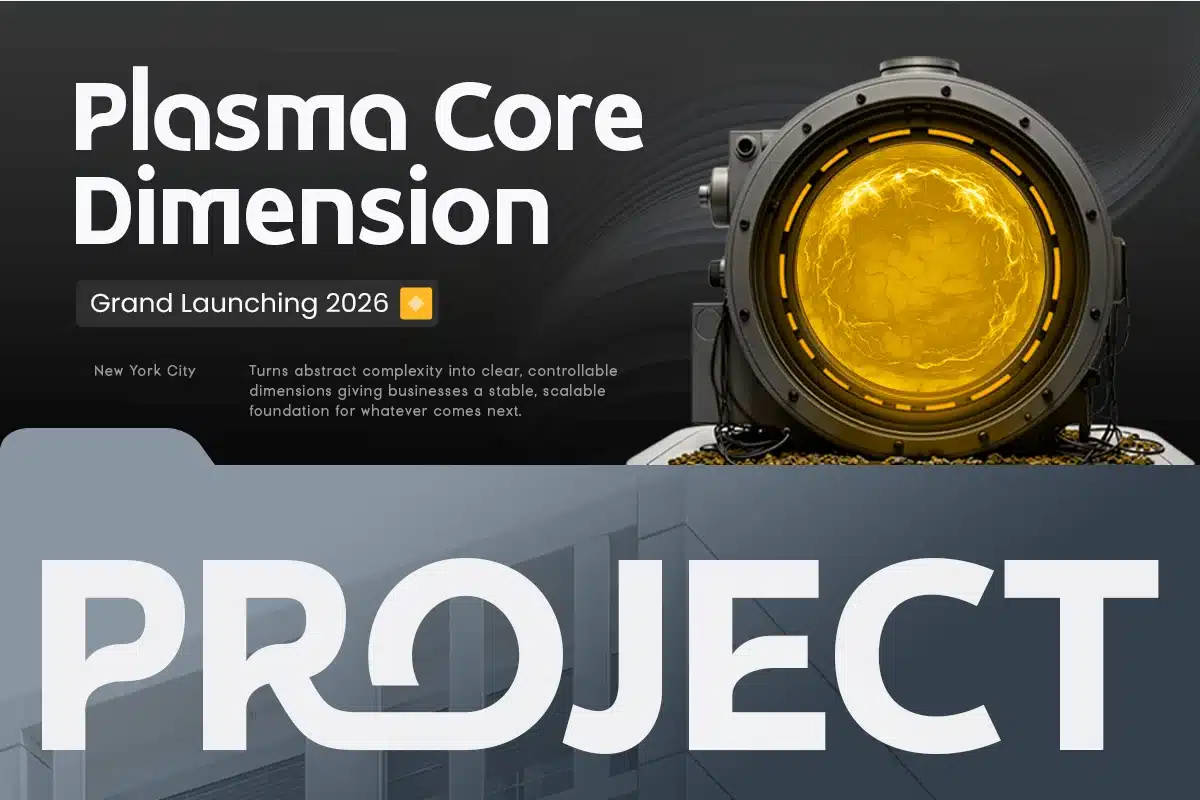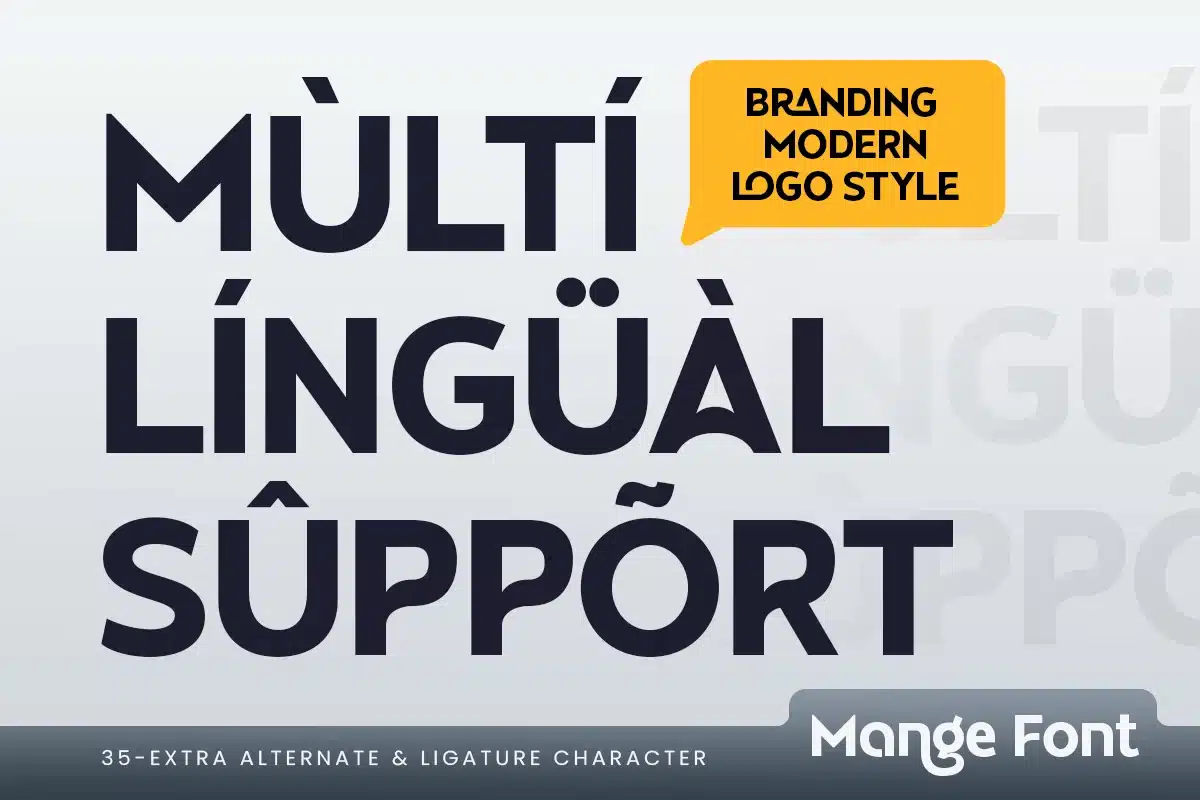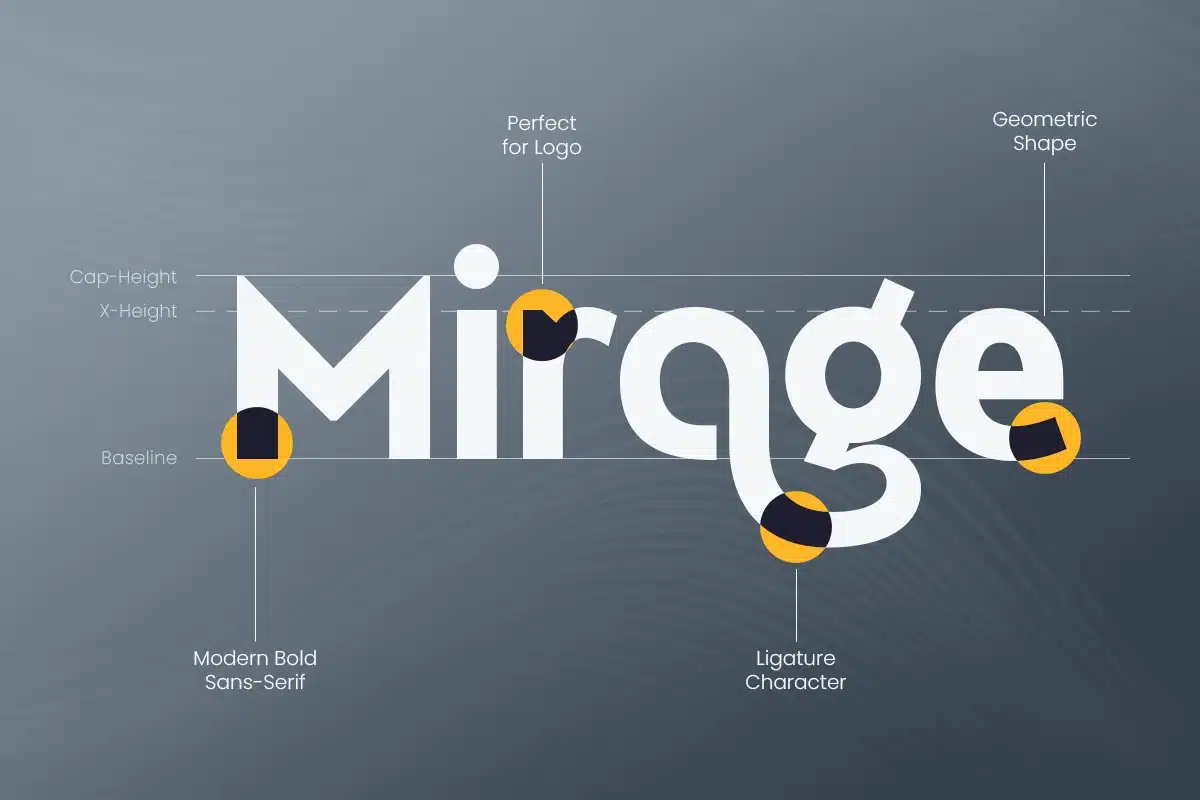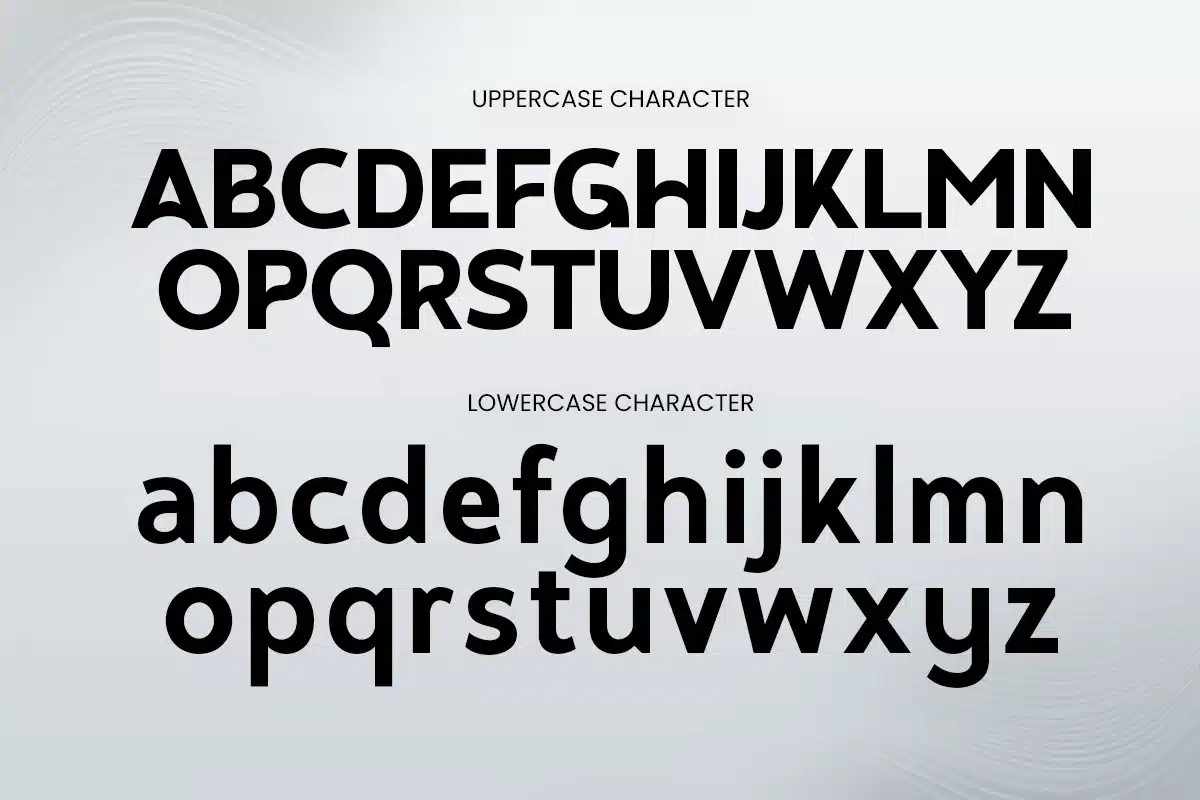
Mange – Branding Modern Logo Font
Mange is a modern logo font designed to deliver clean, professional, and contemporary branding. With its balanced proportions, smooth letterforms, and modern aesthetic, Mange is perfect for logos, brand identities, startups, corporate design, digital products, and creative business visuals.
Built to support strong and recognizable branding, Mange offers excellent readability while maintaining a stylish and modern character. Its versatility makes it ideal for tech companies, agencies, entrepreneurs, lifestyle brands, and designers seeking a modern logo font that works seamlessly across print and digital media.
Mange – Branding Modern Logo Font Features:
- Modern logo font with clean and professional style
- Ideal for branding, logos, startups, and corporate identity
- Well-balanced spacing for clear readability
- Perfect for modern, minimal, and professional brand visuals
Strengthen your brand identity with Mange – a modern logo font made for clean and confident branding.